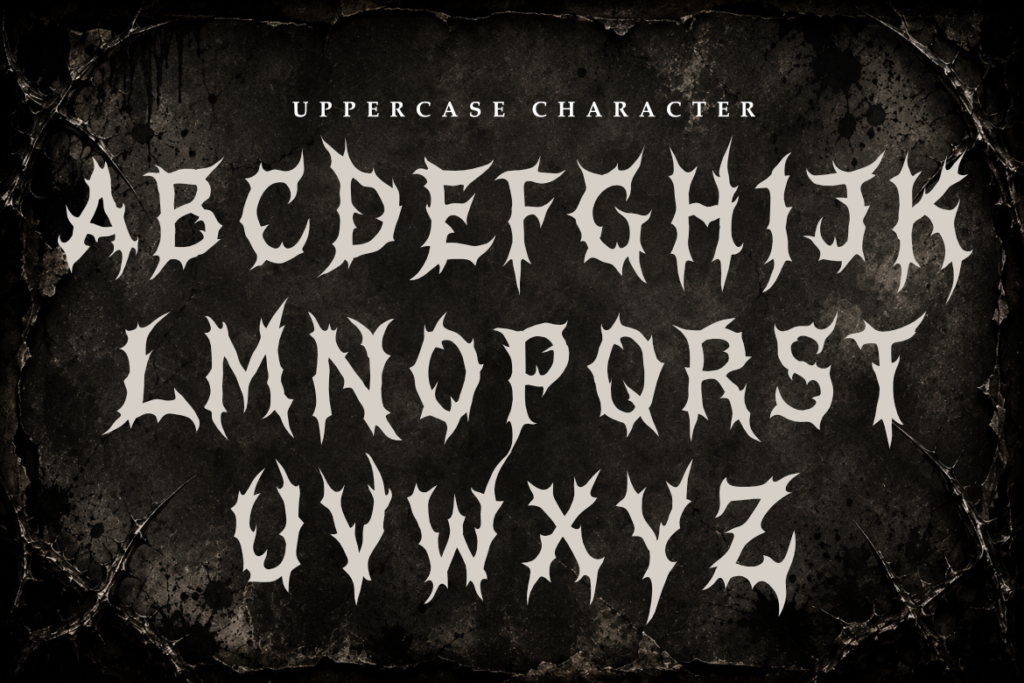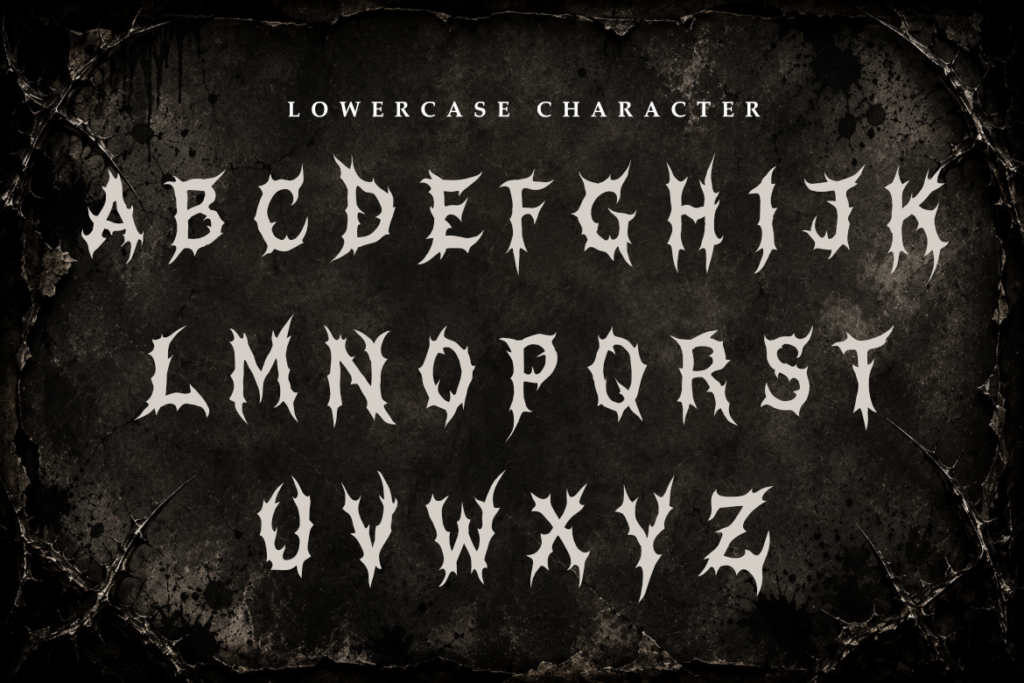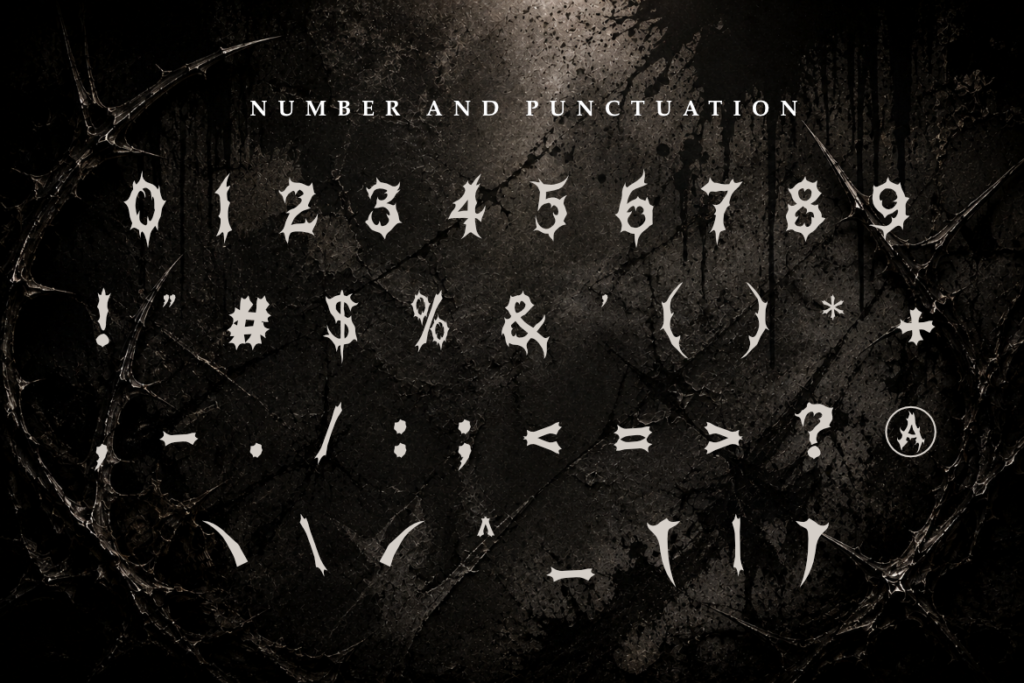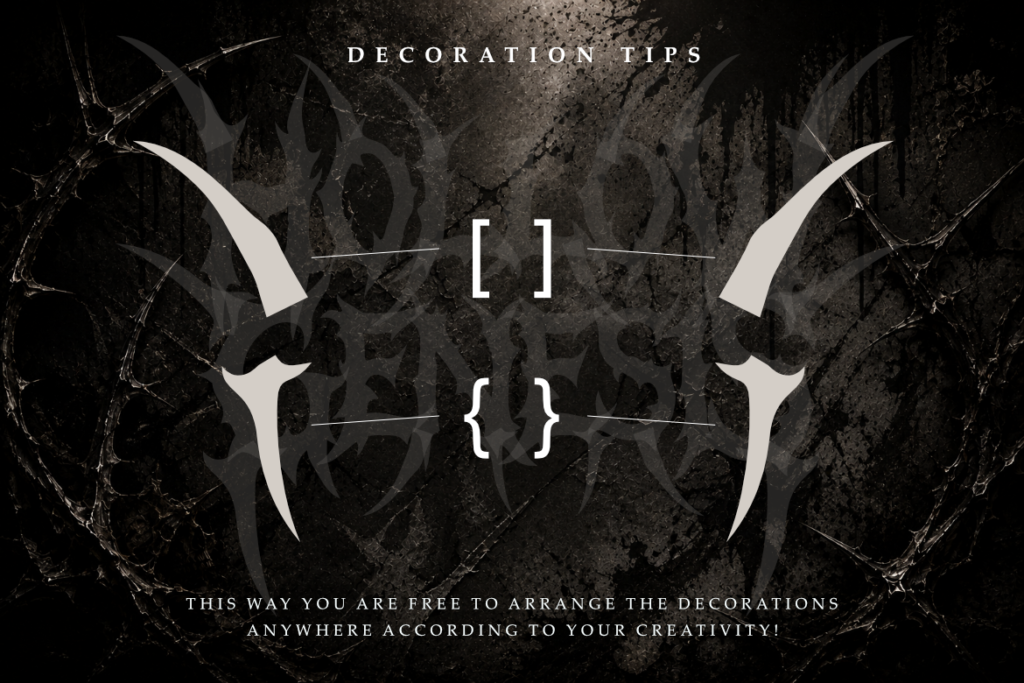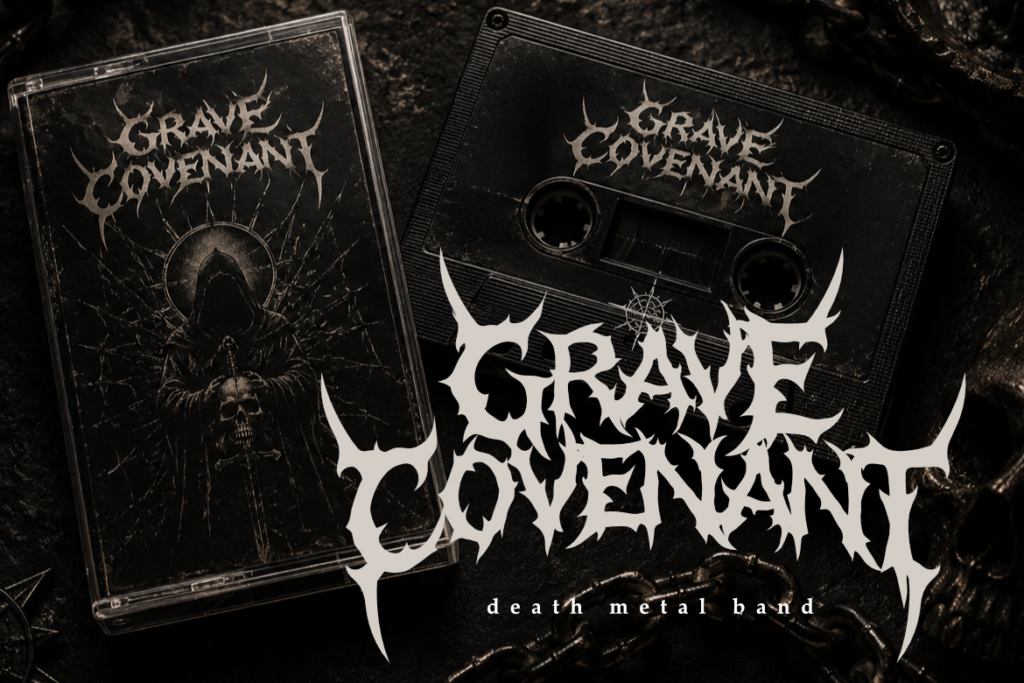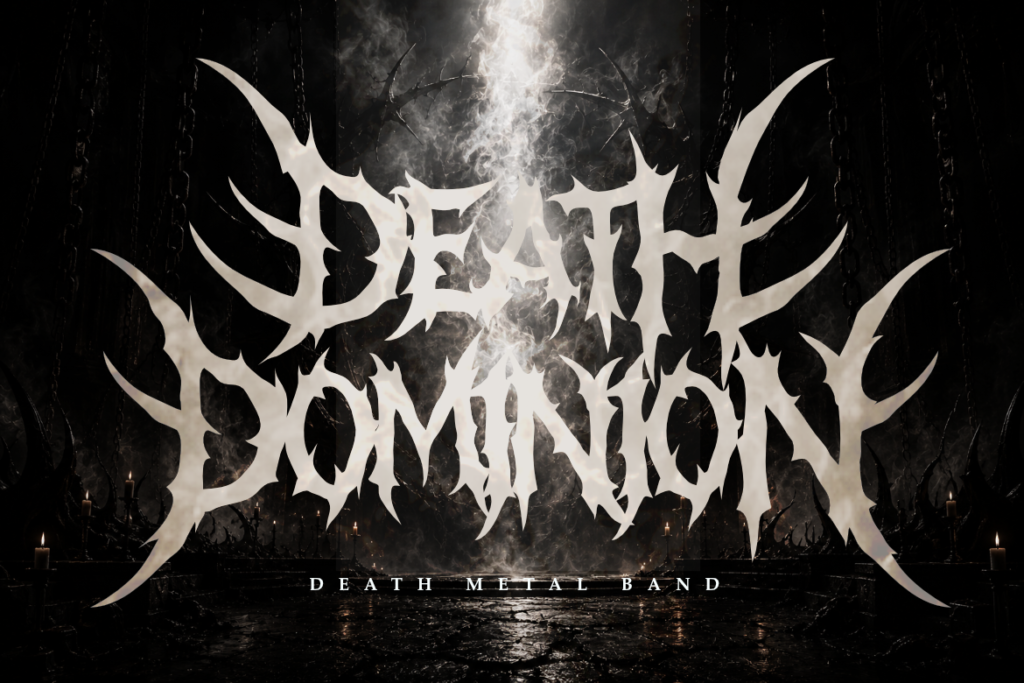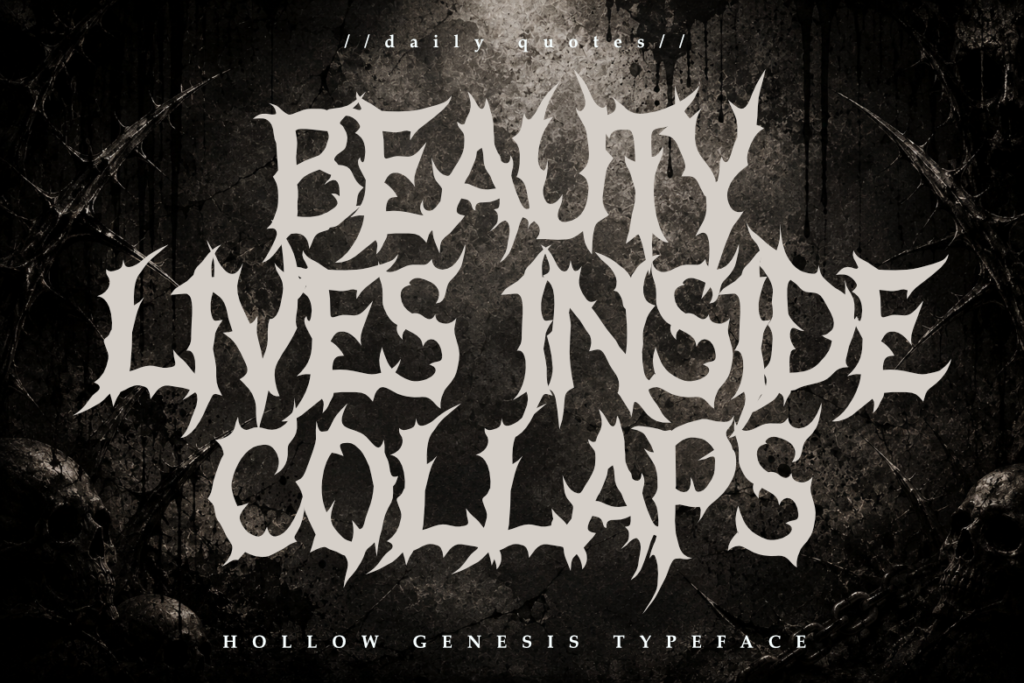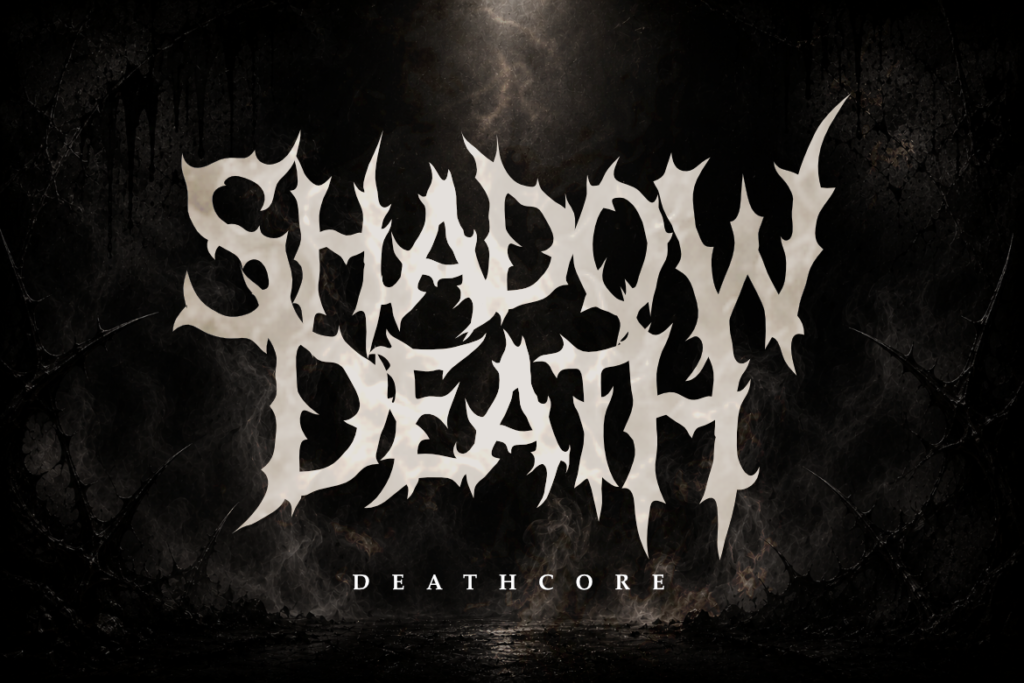
Display typeface · Latin
Hollow Genesis
Brutal Death Metal Font for Band Logos, Album Covers & Extreme Branding Hollow Genesis is a brutal professional font designed for sophisticated branding and high-end extreme design projects. Its sharp and aggressive letterforms provide a contemporary yet timeless feel, striking a perfect balance between intricate thorny structures and modern metal aesthetics. This font embodies the essence of modern minimalism while maintaining a sense of raw power and refinement, making it perfect for logos, corporate materials, and professional presentations within the music and streetwear industry. Whether you are crafting a corporate identity for an extreme label, designing sleek business cards for a tattoo studio, or working on editorial content, Hollow Genesis ensures your work exudes professionalism and style. Ideal for branding, business logos, websites, and more, its refined design effortlessly elevates your project. Inspired by the vibrant energy of the underground scene and atmospheric darkness, Hollow Genesis offers versatility and adaptability for various design applications, helping you communicate a polished and modern aesthetic that leaves a lasting impression. Main Features: Bold, sharp, and aggressive death metal style. Intricate thorn-like silhouettes with an interlocking structure. Perfect for high-end branding, and logos. Designed for maximum visual impact in display use. What’s Included: Hollow Genesis.otf Hollow Genesis.ttf